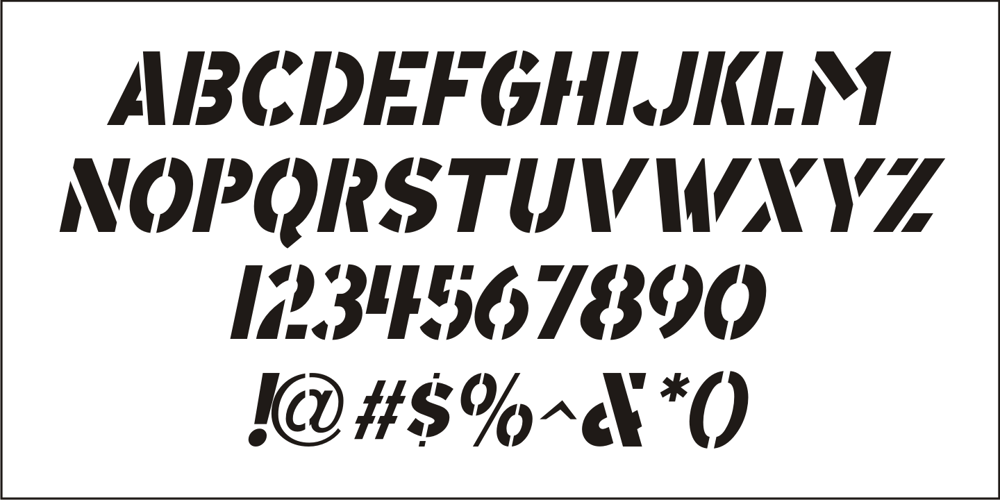
Kiddie Stencil JNL
Kiddie Stencil JNL font
Kiddie Stencil JNL Font Family was designed by Jeff Levine and published by Jeff Levine. Kiddie Stencil JNL contains 2 styles and family package options. At one time, the Hampton Publishing Company of New York specialized in producing reading and activity books for children. The “Letters and Numbers Stencil Book” (probably from the late 1940s or early 1950s) was the basis for Kiddie Stencil JNL. This bold sans serif type style replicates the handmade steel rule dies used for cutting the stencil pages of the book, and is available in both regular and oblique versions.